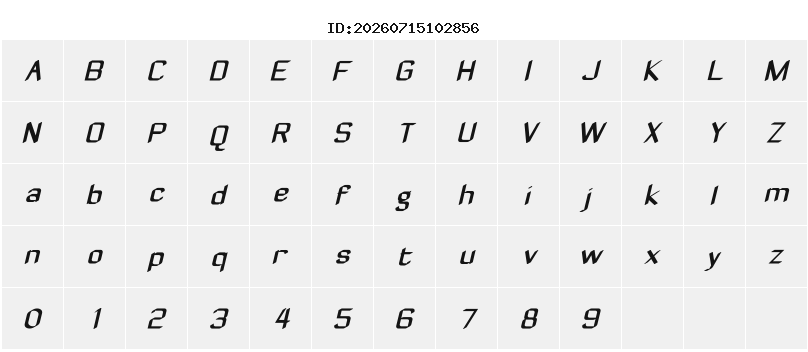
Zyphyte Preview
• Font Name: Zyphyte
• Font Style: Medium Italic
• Font ID: ZyphyteOblique
• Full Font Name: ZyphyteOblique
• PostScript Name: ZyphyteOblique
About Zyphyte.ttf
Zyphyte.ttf is a modern, elegant sans-serif font designed for ultimate readability and visual harmony. Perfect for branding, headlines, web design, and print materials.